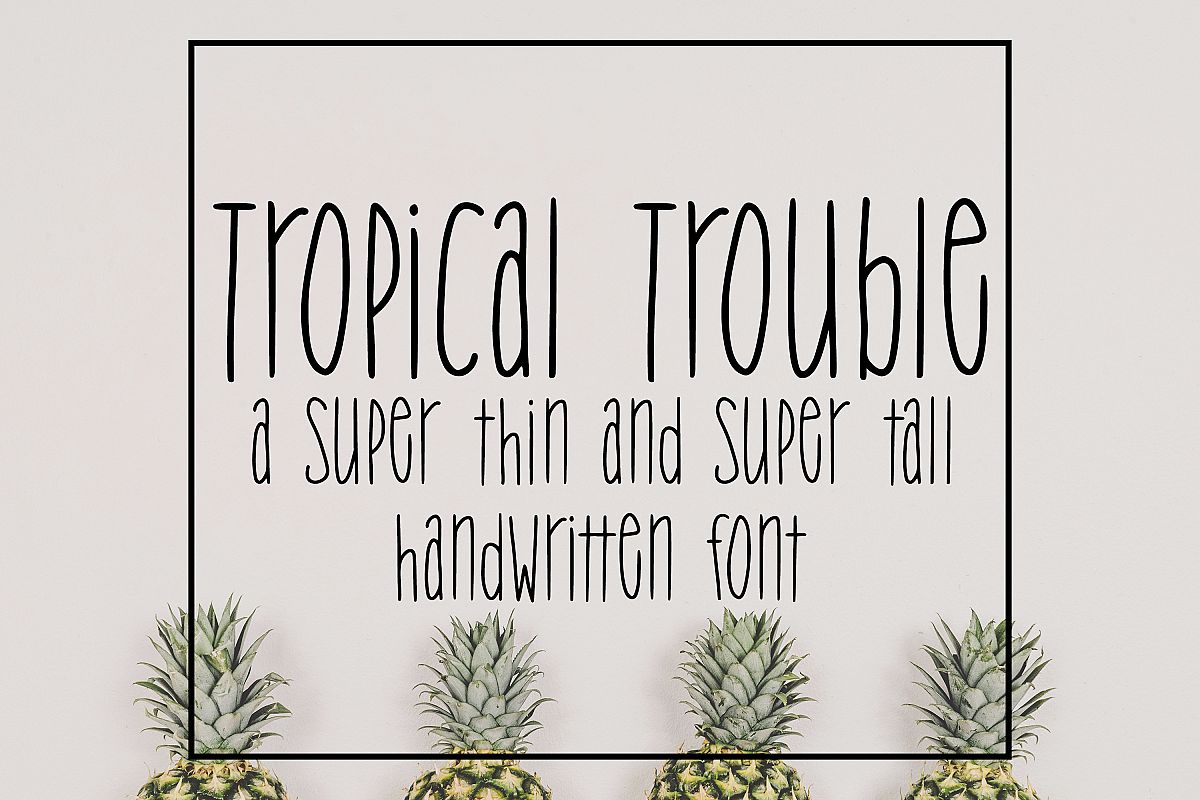
Tropical Trouble - Tall and Skinny Handwritten Font
• Contains over 200 accented characters for language support. Some of the languages supported are: English, Spanish, Portuguese, German, Italian, French, Polish, Catalan, Irish, Norwegian, Croatian, Gaelic, and more! If you would like to know if a certain language is supported, please contact me with the language and/or any special characters you wanted to know about.